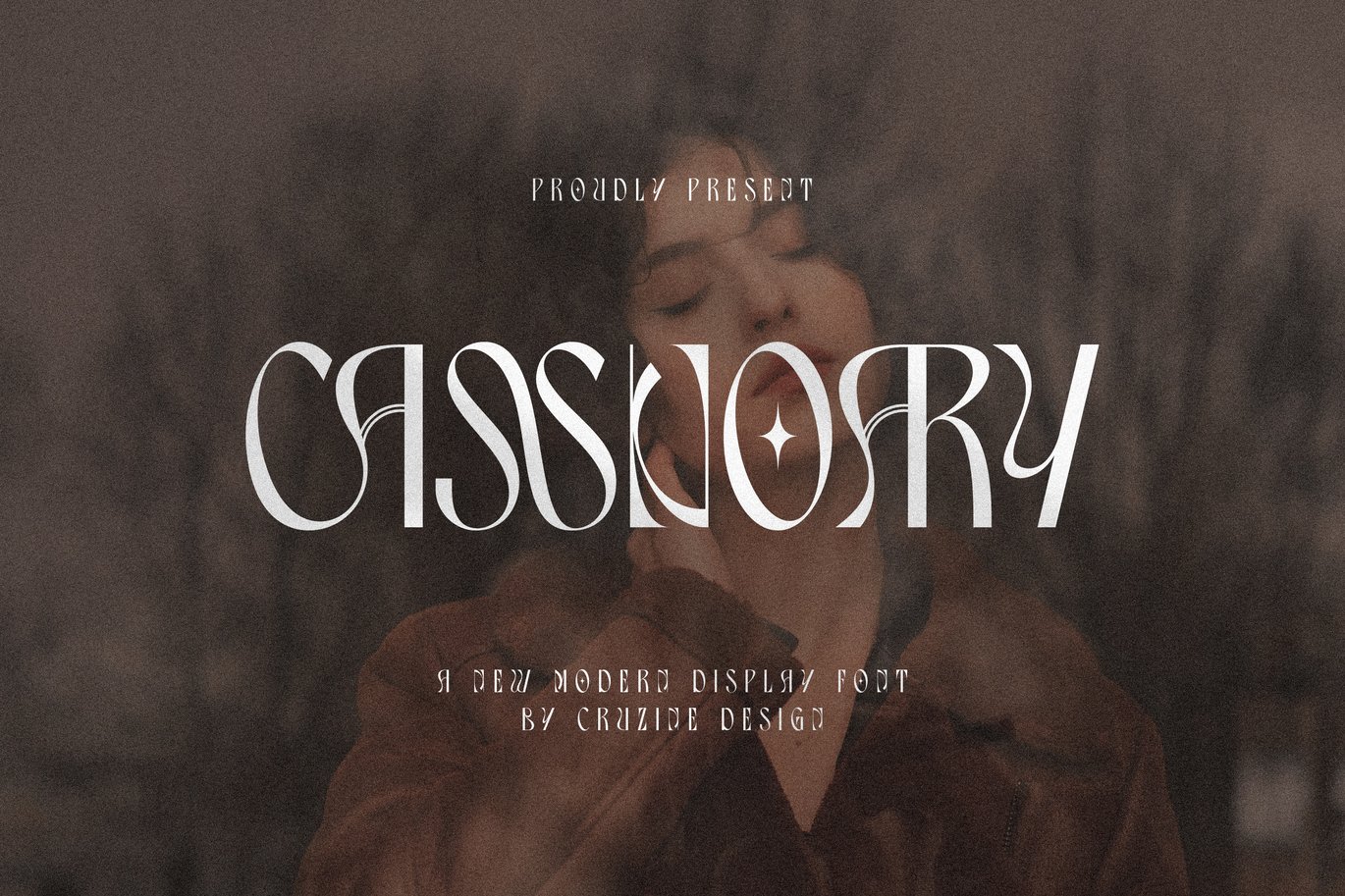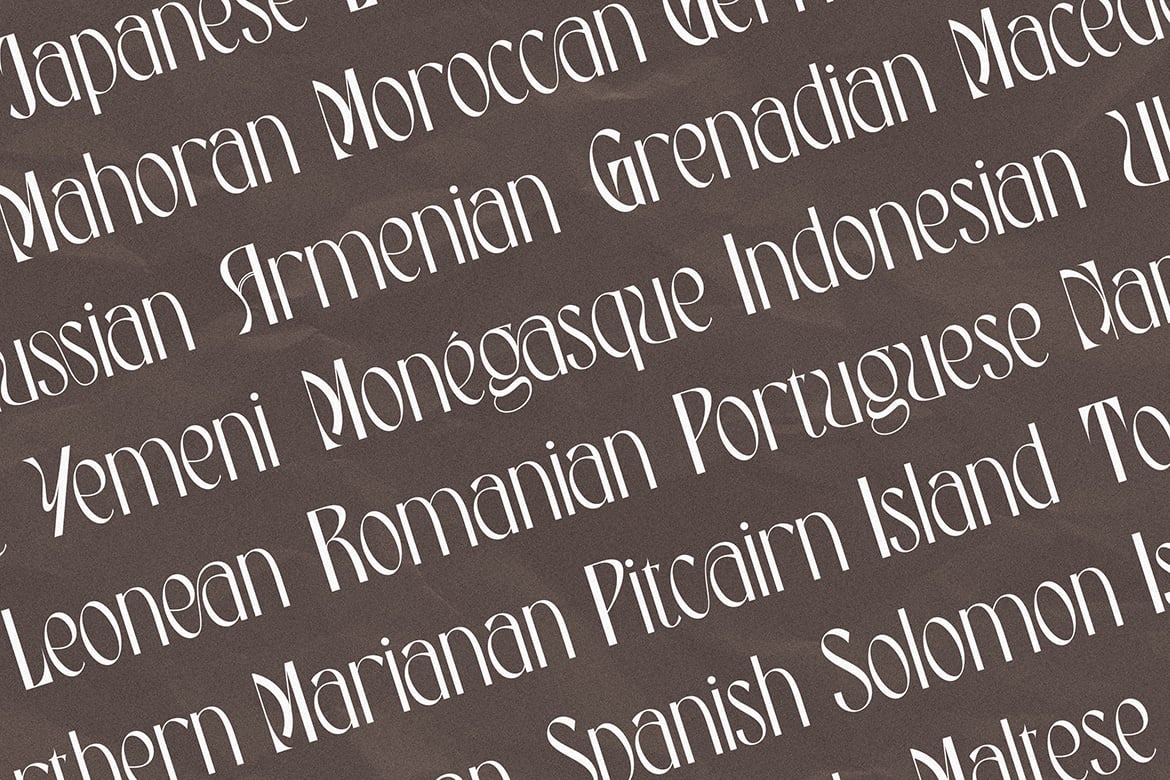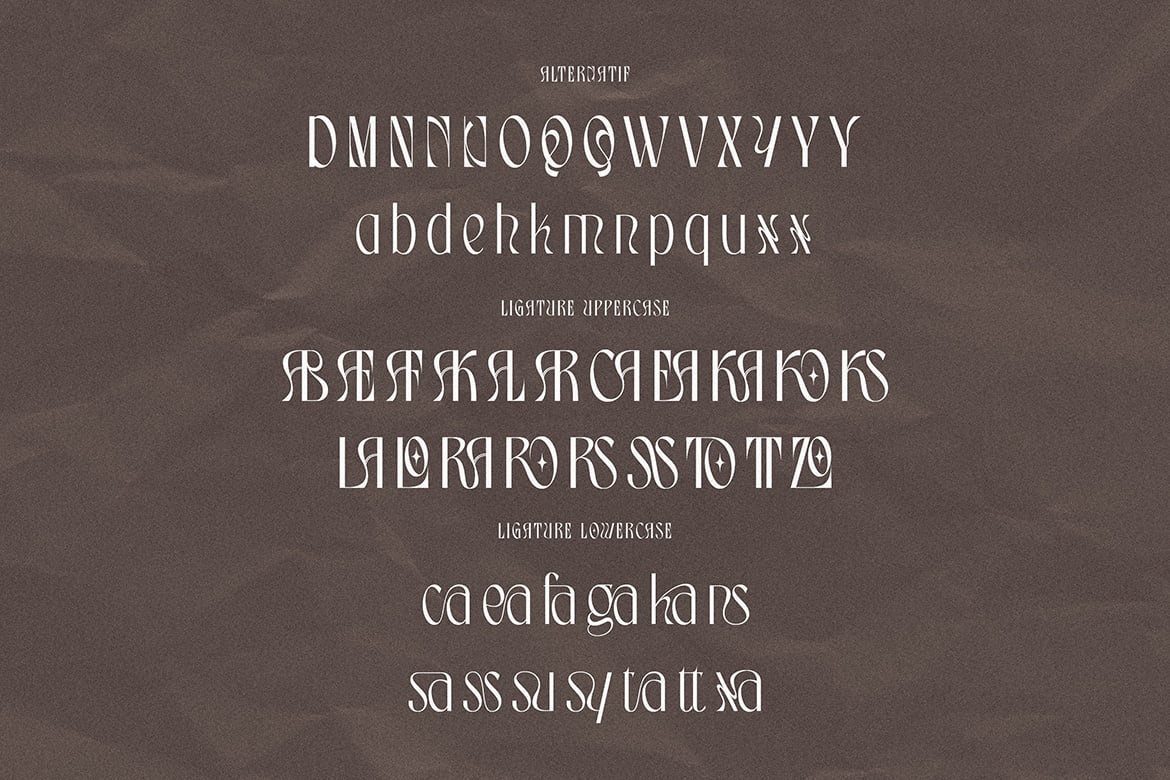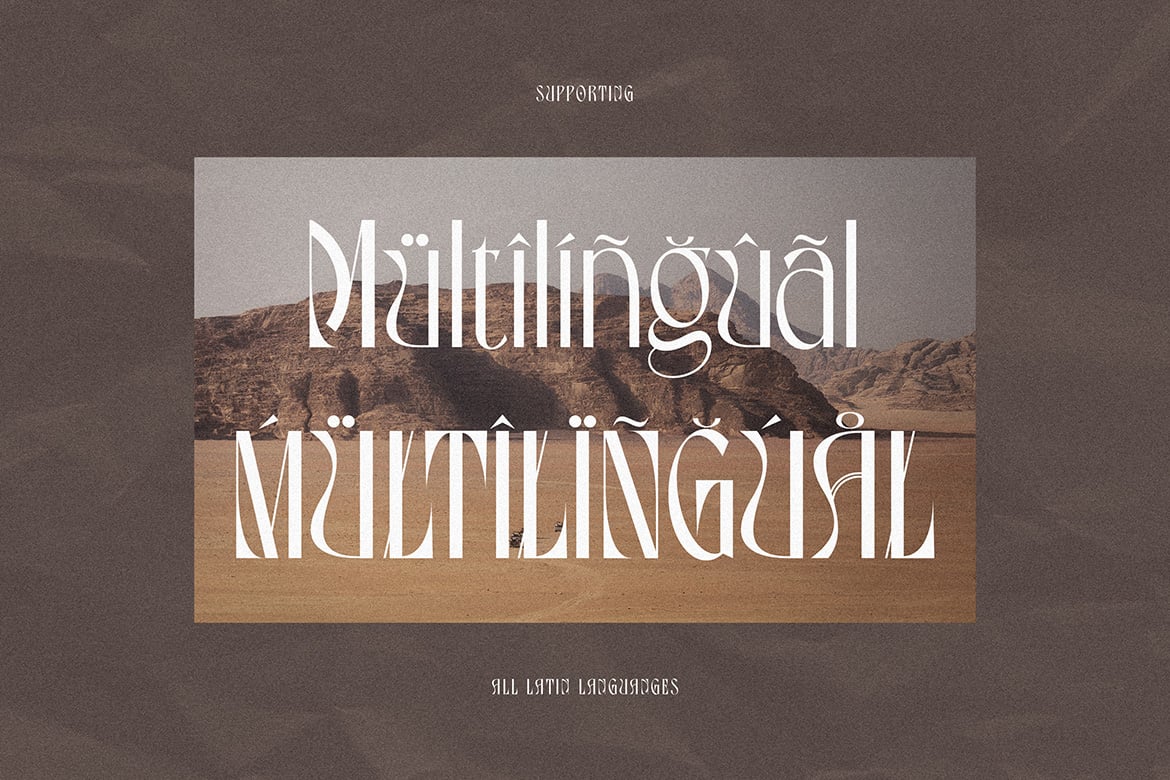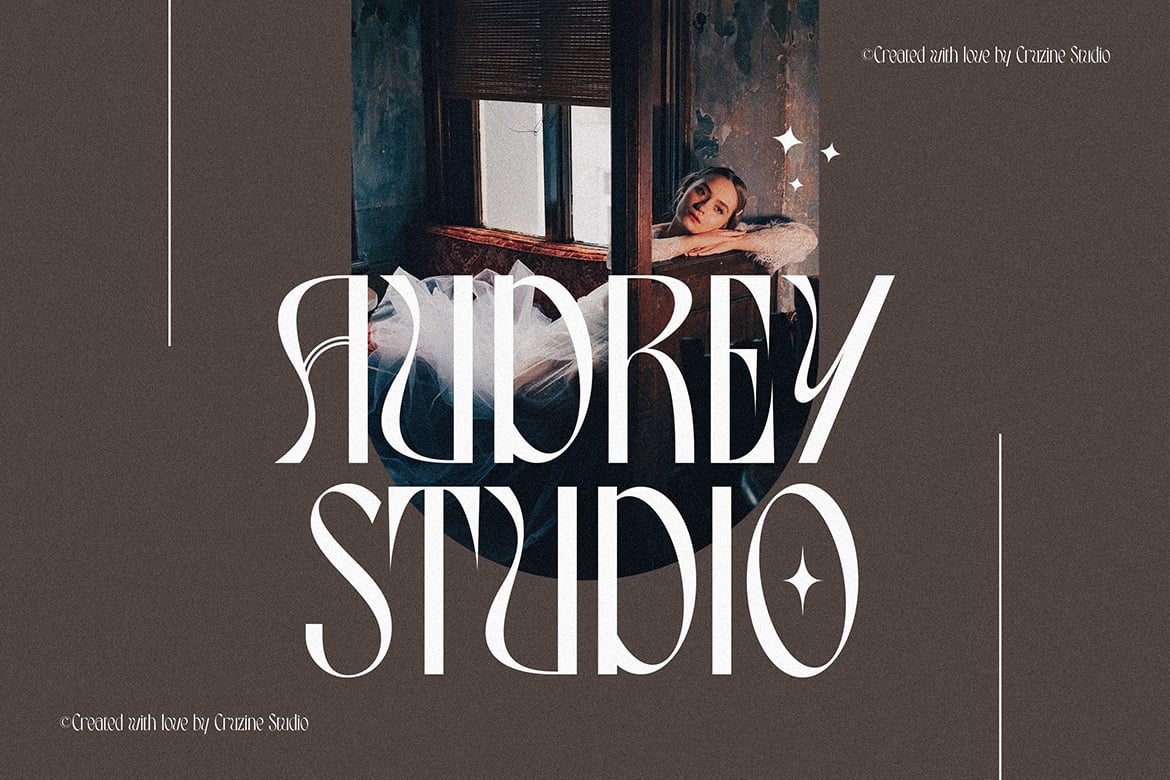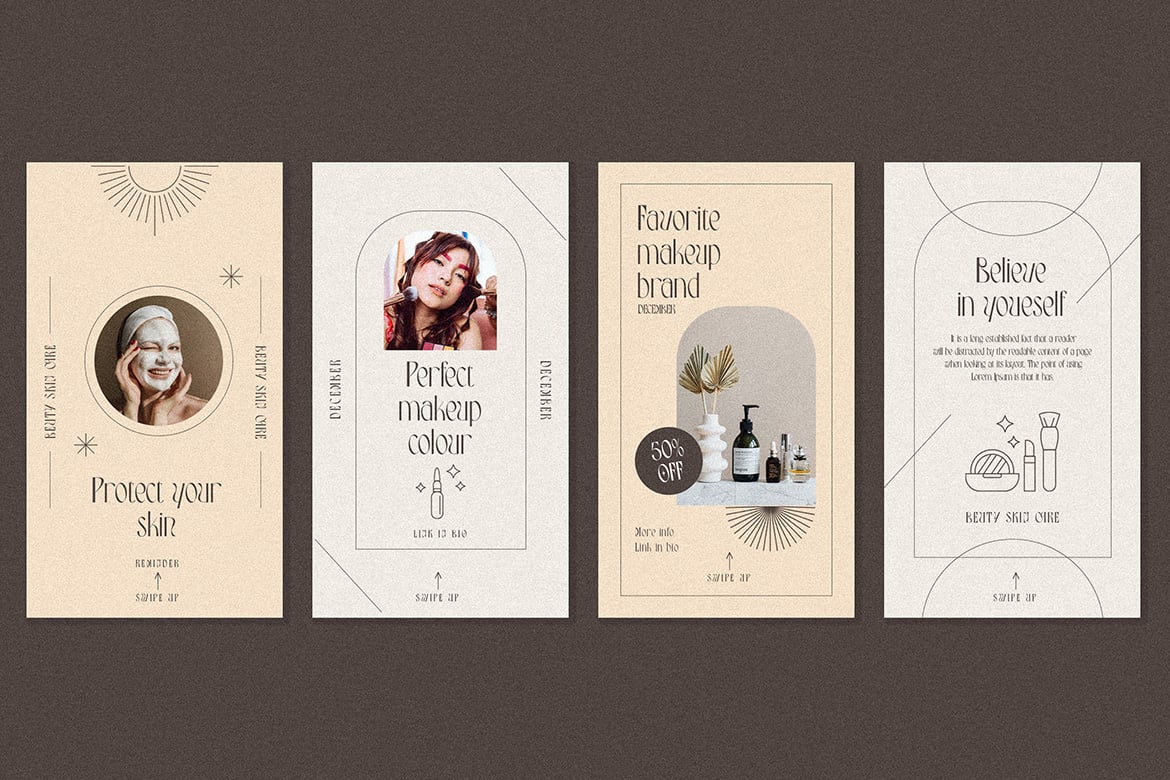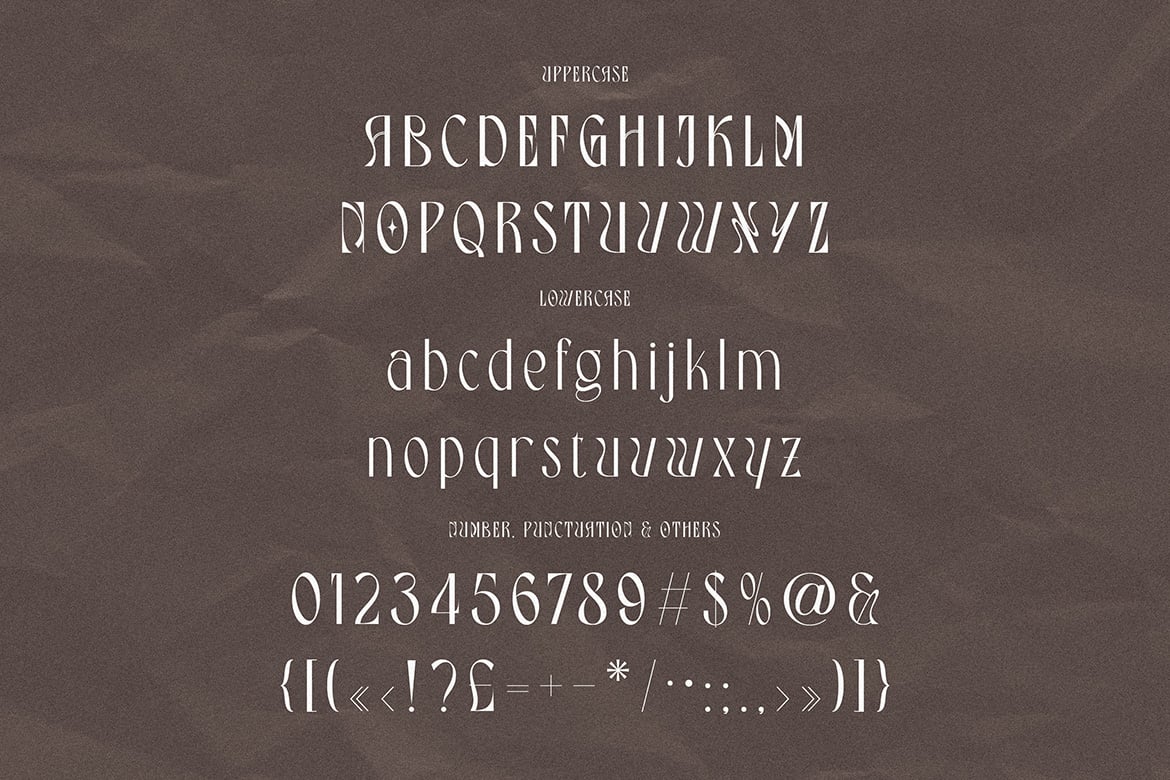
Cassnoary Modern Font
Trendy, groovy, fancy & modern style font for your new artistic projects. Elegant, artistic and funky style on Cassnoary font will be great for any branding project. Lot of alternates and ligatures will help you to create unique and original logo design or website header! Enjoy π
- Alternate characters
- Lot of ligatures
- Great for modern branding projects!